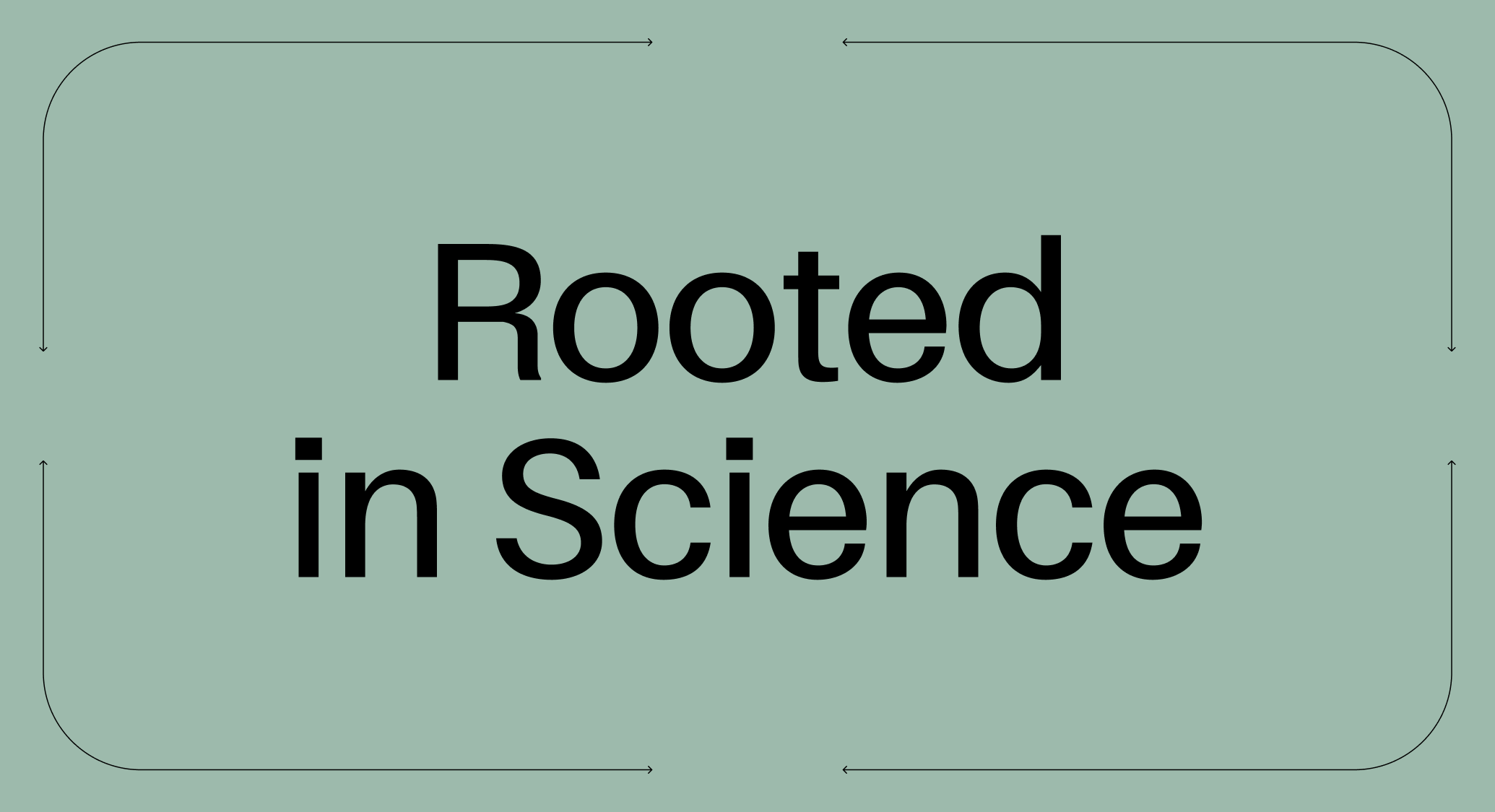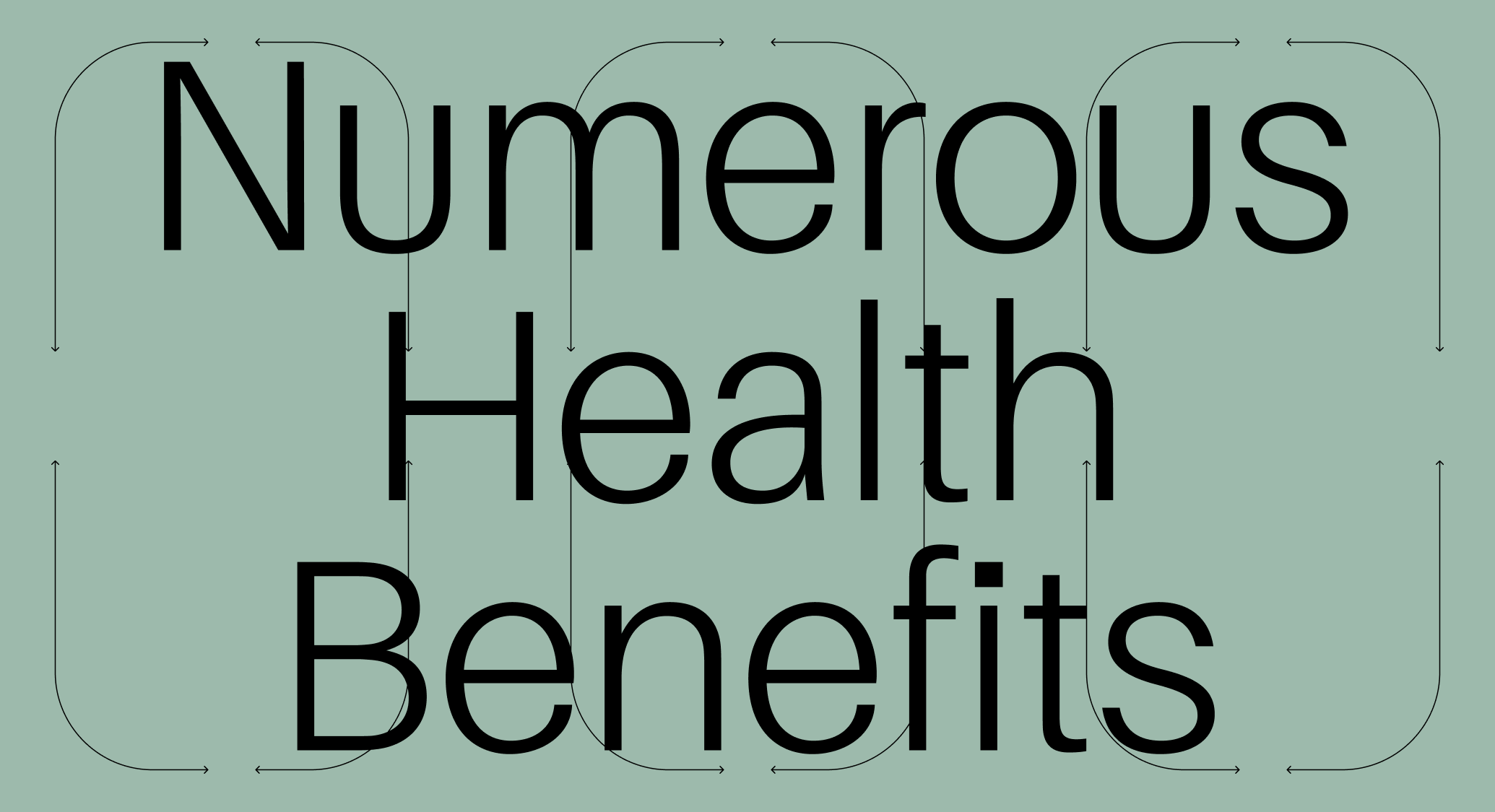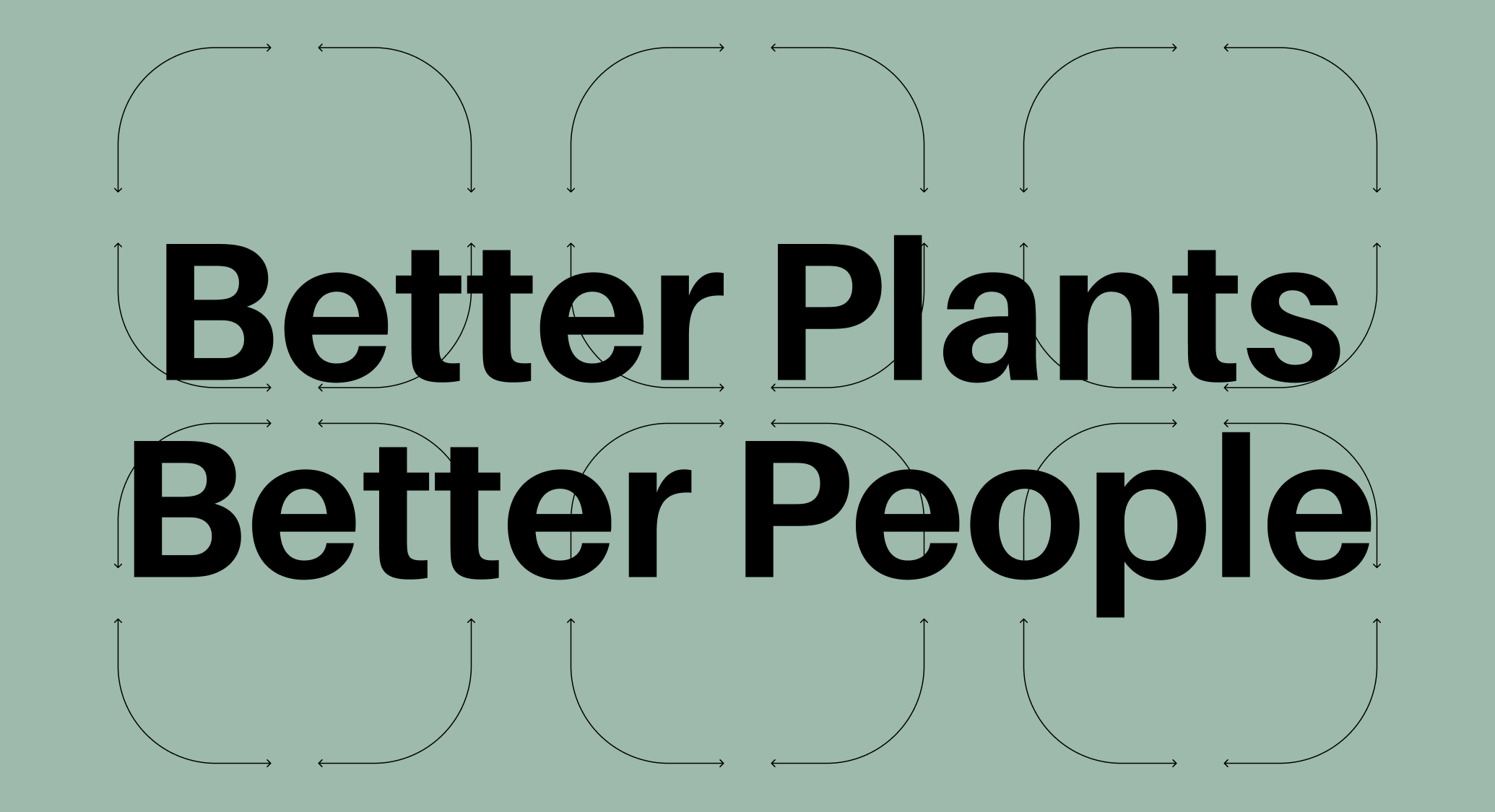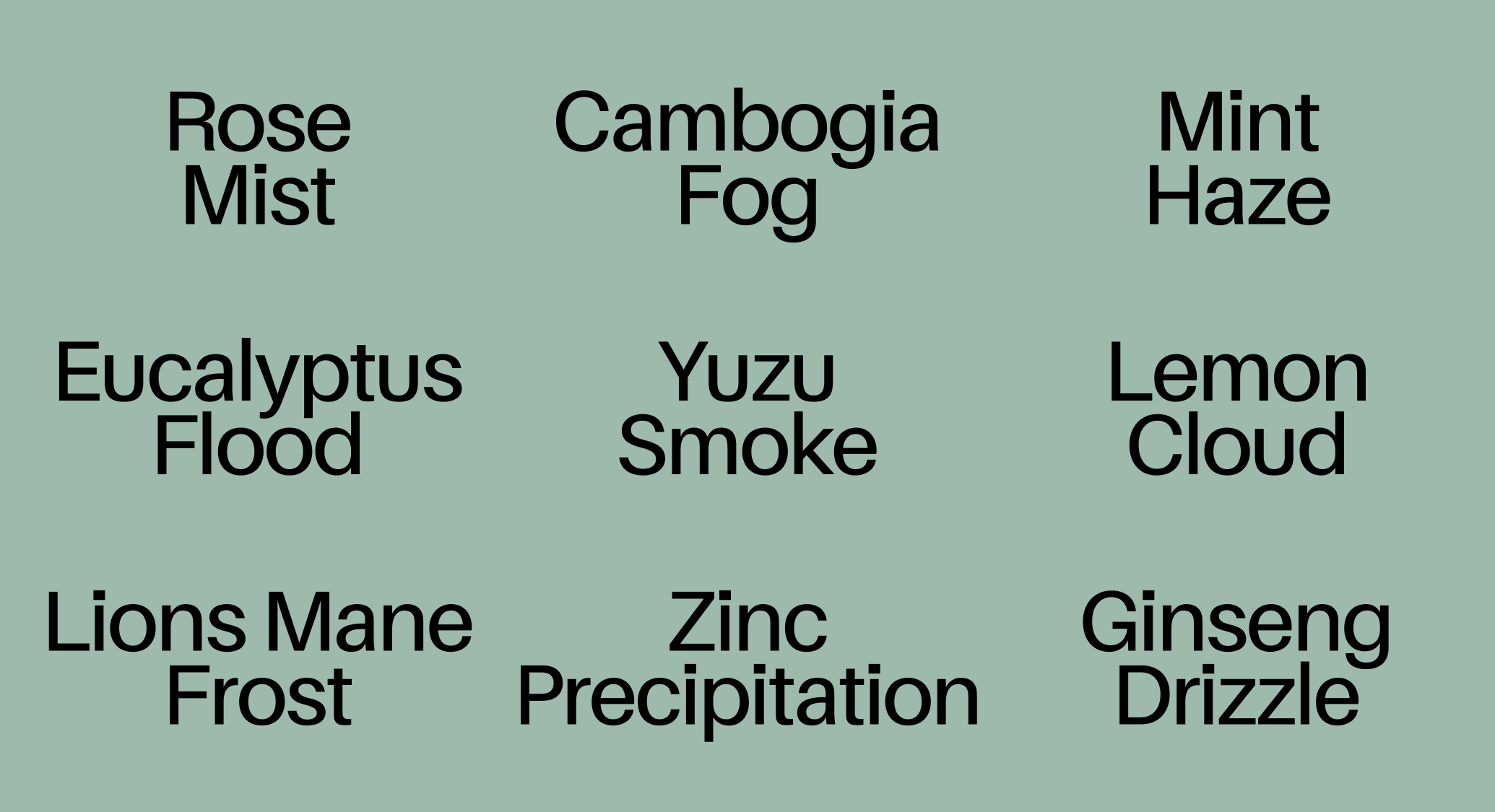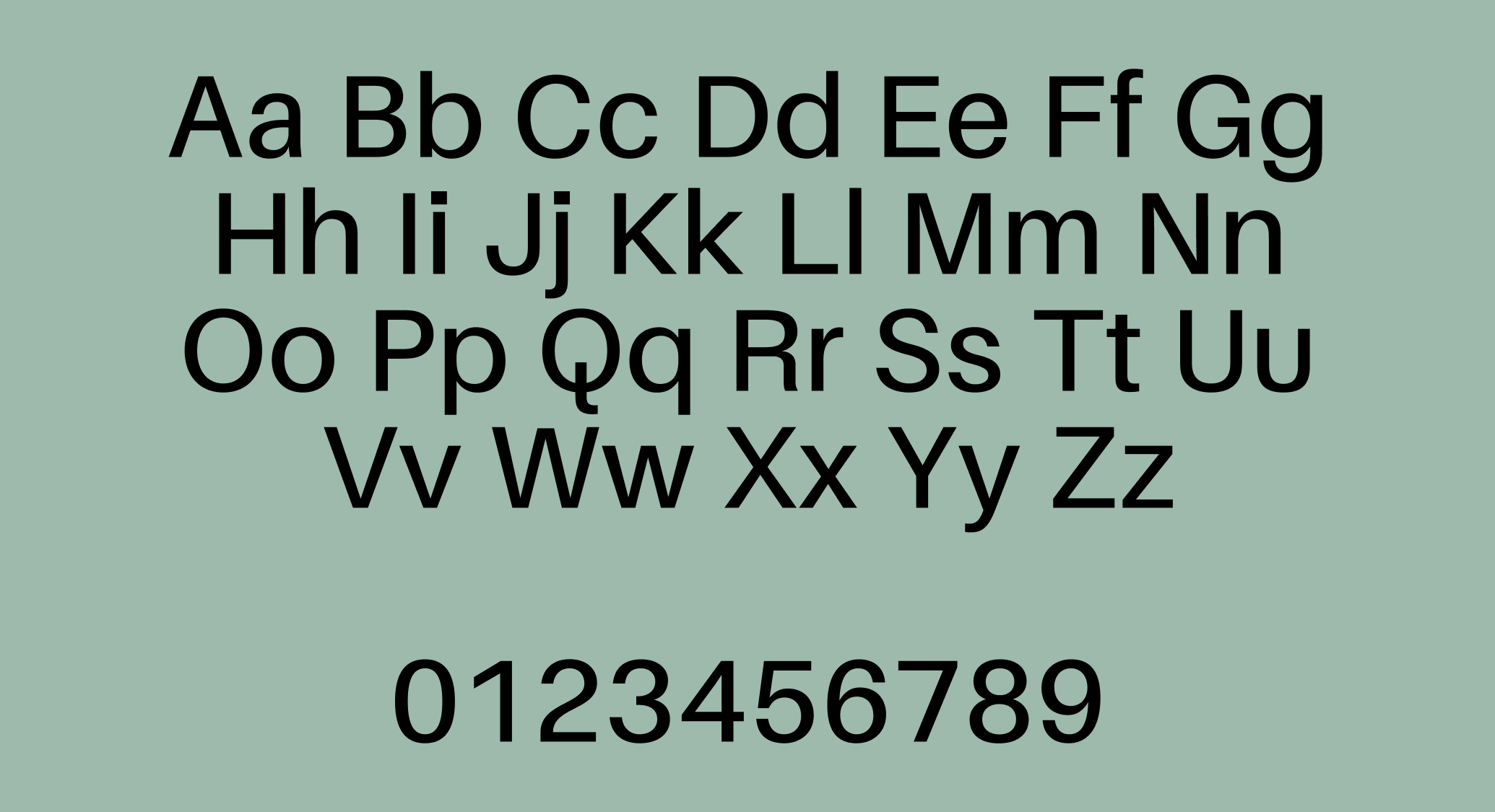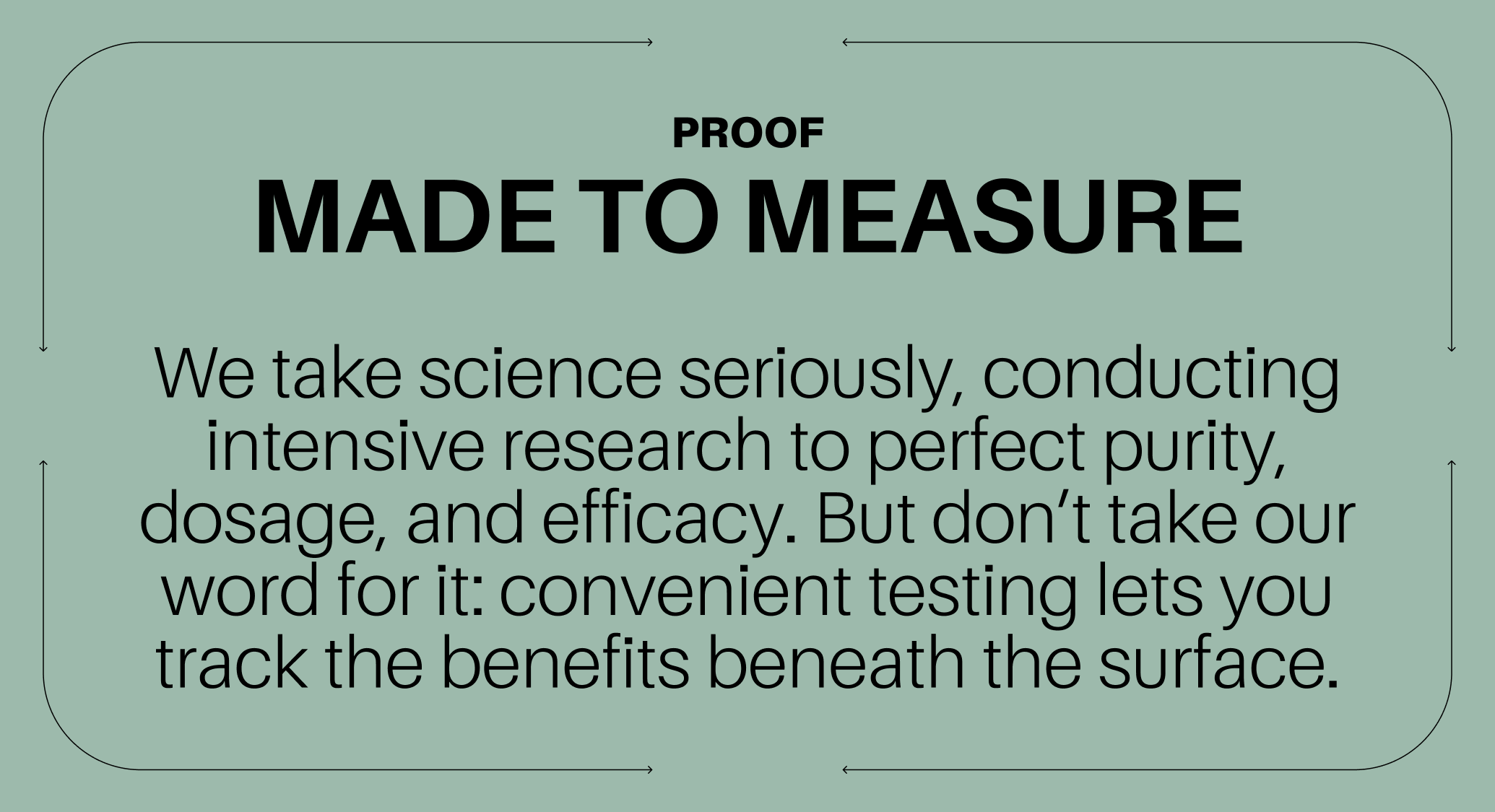
SETU
The Setu typography system by Abbr. Foundry represents the Indian wellness brand’s synthesis of agriculture and science, farm and lab, spice market and pharmacy, organic and synthetic.